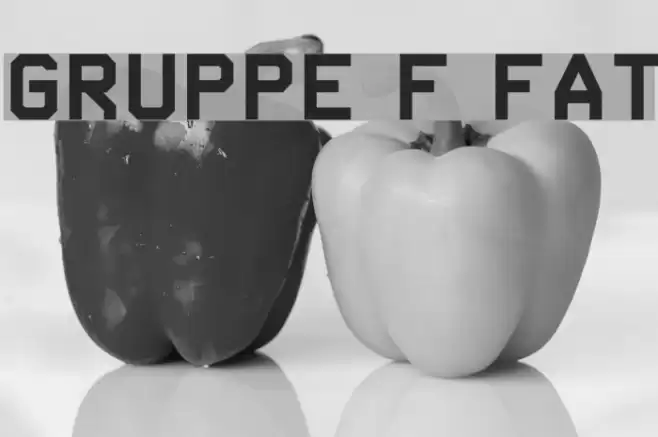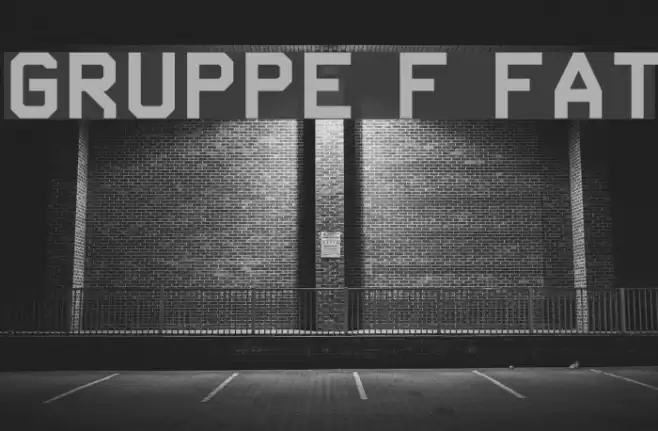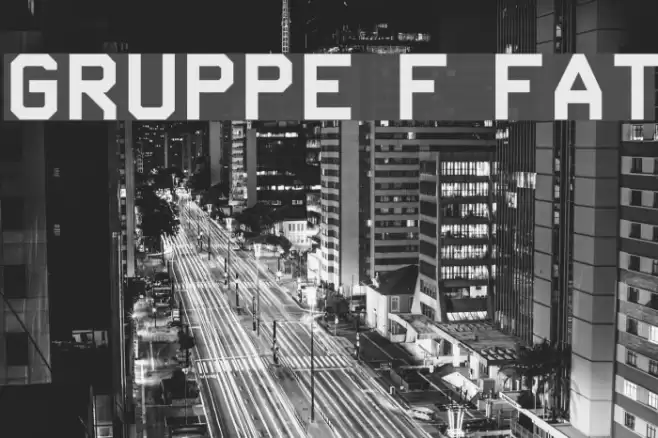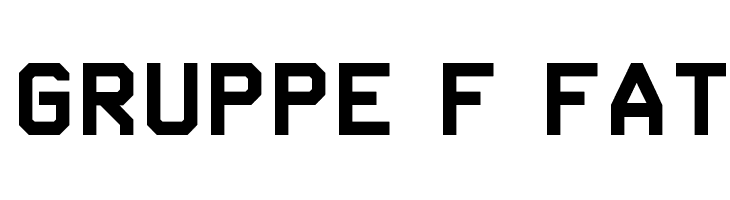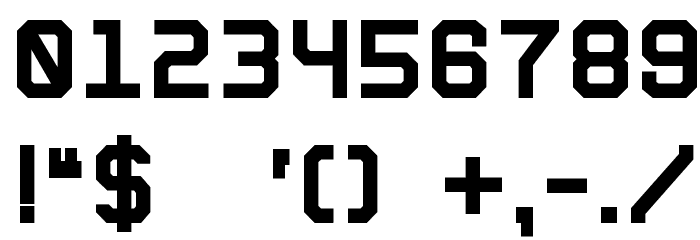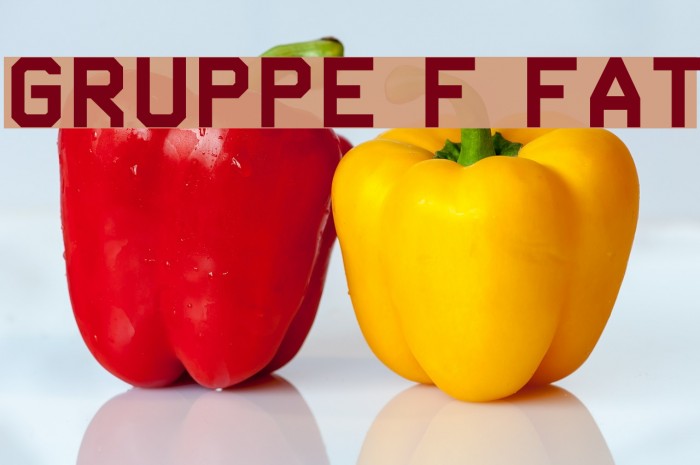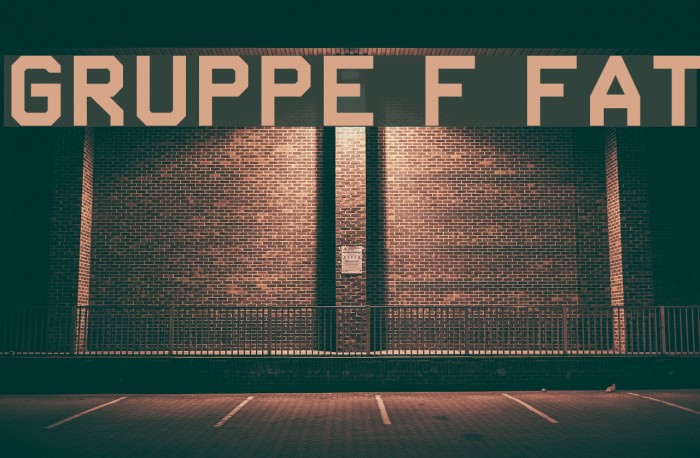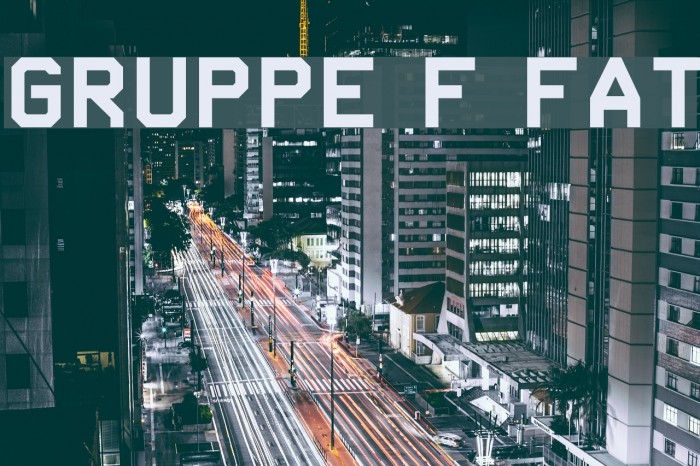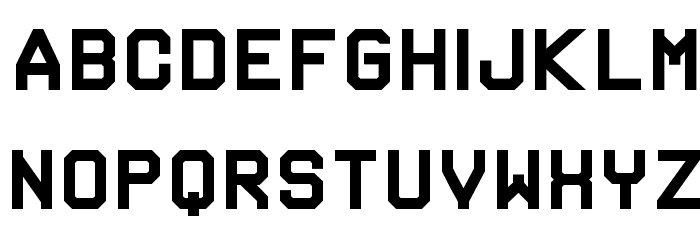
Gruppe F Fat Font
Gruppe F Fat Description
This font features a bold, geometric design with a strong, industrial feel. The characters are constructed with straight lines and sharp angles, giving it a modern and robust appearance. The uppercase letters are uniform in height, while the lowercase letters maintain a consistent style, ensuring readability. The numerals are distinct and align well with the overall aesthetic, making them suitable for digital displays or technical documentation. Special characters are designed to match the boldness and geometric nature of the font, providing a cohesive look across all glyphs.
A bold, geometric font with an industrial and modern design from Uncategorized fonts.
- Proposed Projects: Ideal for branding, signage, digital displays, and technical documentation.
- Use Case: Logos, Headlines, Digital displays